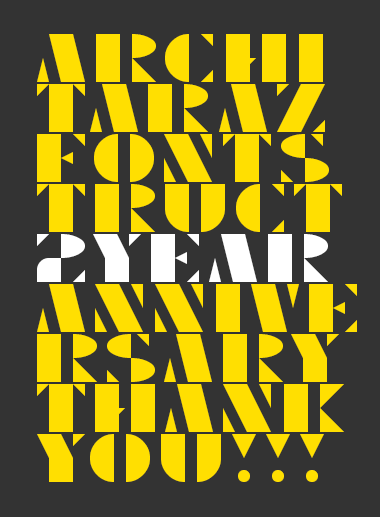
AT Traffa Stencil
Small scale geometrical stencil. Supposed to be an all-caps font, but lowercase was added for the purpose of variation.
The lowercase works well. 10/10
Now this is my kind of font! ;-)
10/10, will make my own version.
Thumbs up to this. I like it. :)
A font worthy of celebration!
Very nice! I've wanted to do something like this for a while, but I couldn't figure out a good design. Yours is great, and I love the extended set in your screenshot.